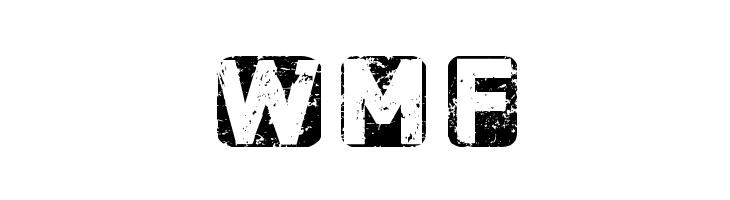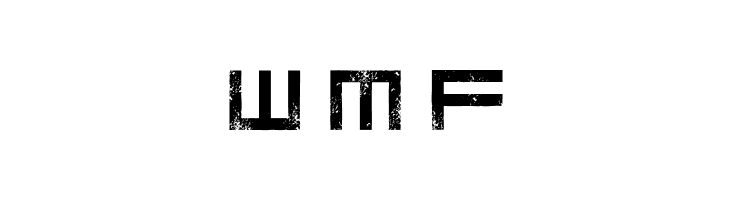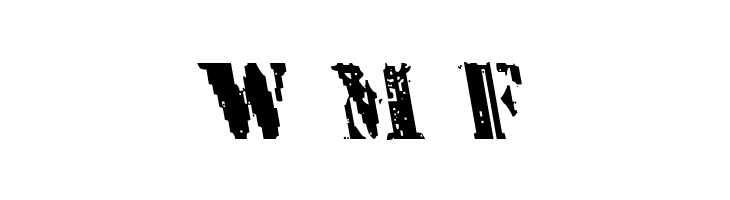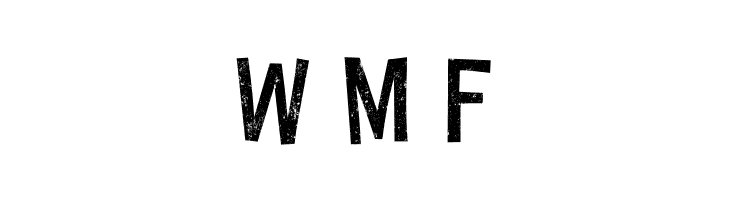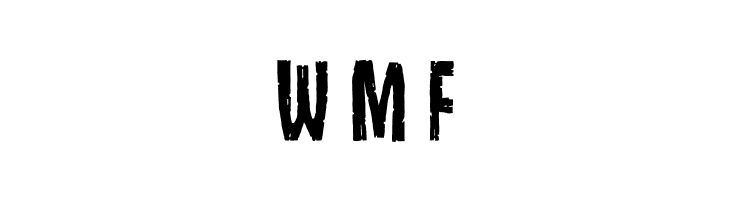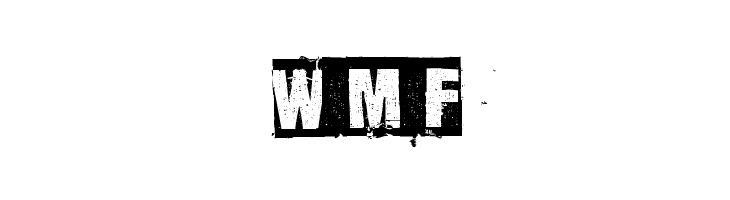
A bold, distressed font with a torn, rugged appearance.
A jagged, distressed font with a horror-inspired, hand-drawn look.
A bold, rugged font with a distressed, textured appearance.
A bold, distressed, italic font with a rugged, military-inspired design.
A bold, rugged font with a shadow effect and italic slant, featuring a textured, stone-like appearance.
A bold, rugged, and distressed font with a military-inspired style.
A bold, distressed font with a rugged, military-inspired design.
A bold, distressed, expanded italic font with a rugged and dynamic style.
A bold, distressed font with a rugged, military-inspired design.
A bold, distressed, and condensed italic font with a rugged military style.
A bold, distressed font with a rugged, riddled appearance.
A bold, rugged font with a distressed texture and commanding presence.
A bold, distressed font with a rugged, vintage look.
A bold, 3D italic font with a textured, industrial look.
A bold, distressed font with a grunge, weathered appearance.
A bold, distressed italic font with a hand-painted, dynamic style.
A futuristic, geometric font with a 3D effect and sharp, angular design.
A jagged, thorn-like font with an edgy, rebellious style.
A bold, textured font with a rugged, geometric style.
A bold, distressed font with a pixelated, grunge style.
A bold, distressed font with a grunge texture, perfect for edgy designs.
A bold, distressed font with a grunge aesthetic.
A bold, textured font with a rugged, organic appearance.
A bold, distressed font with a grunge texture and strong presence.
A bold, distressed font with a grungy, hand-crafted appearance.
A bold, textured font with a distressed, handcrafted appearance.
A bold, cracked texture font with a rugged, edgy appearance.
A geometric, minimalist font with a modern, wireframe aesthetic.